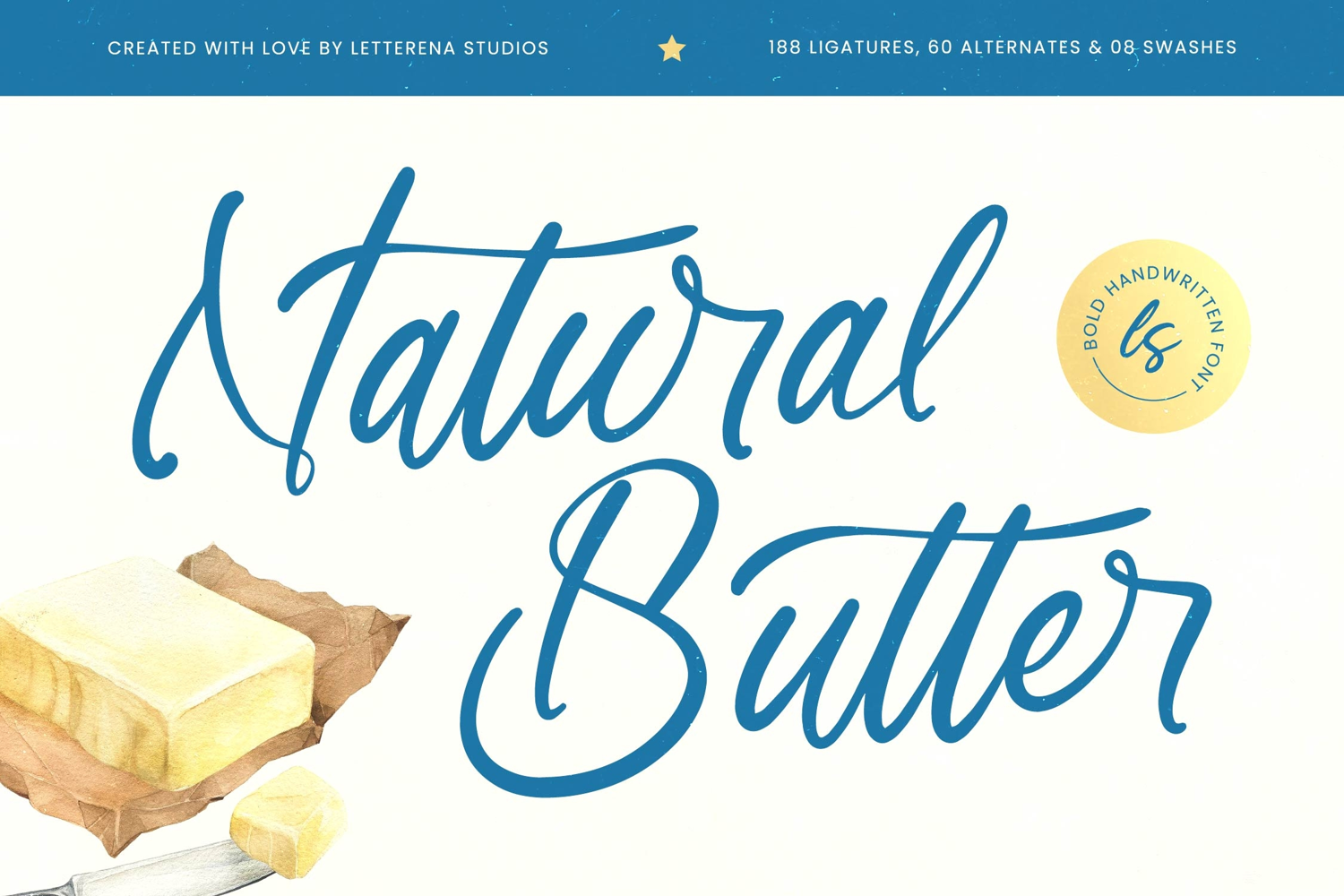
Natural Butter Bold Handwritten Font
Natural Butter
Natural Butter Italic
Natural Butter - Bold Handwritten Font , from Letterena, is a Luxury Script font, suitable for any projects such as: logos, branding projects, homeware designs, product packaging, mugs, quotes, posters, shopping bags, t-shirts, book covers, name card, invitation cards, greeting cards, label, photography, watermark, special events, and all your other luxury and beautiful projects that need a Luxury Script taste.
188 Ligature 60 Alternate & 08 Swashes